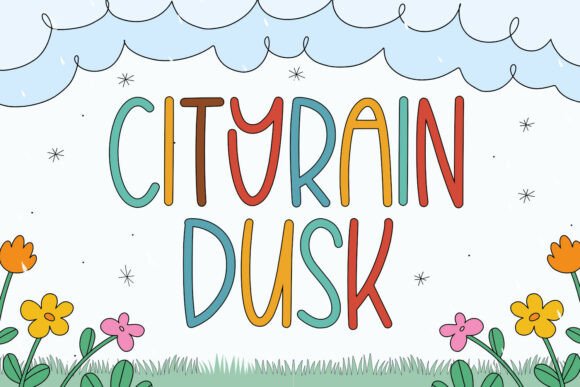
Cityrain Dusk Font: Adding a Touch of Whimsy to Your Designs
When it comes to creating visually appealing designs, the right font can make all the difference. If you’re looking for a font that exudes playfulness and charm, look no further than Cityrain Dusk Font. This delightful font is perfect for adding a touch of sweetness to your designs, whether you’re working on a children’s book, a cute logo, or social media graphics.
What Makes Cityrain Dusk Font So Special?
Cityrain Dusk Font is a charming and playful font that brings a smile to your designs. Its rounded edges, bouncy baseline, and whimsical strokes give it a unique and endearing quality that feels like a handwritten note from a friend. The font’s distinctive features include:
- Rounded Edges: The font’s rounded edges give it a soft and gentle appearance, making it perfect for designs that require a touch of warmth and friendliness.
- Bouncy Baseline: The bouncy baseline adds a playful and dynamic feel to the font, making it ideal for designs that need to convey energy and movement.
- Whimsical Strokes: The font’s whimsical strokes add a touch of personality and character to the font, making it perfect for designs that require a dash of creativity and imagination.
Perfect for a Variety of Design Projects
Cityrain Dusk Font is a versatile font that can be used for a wide range of design projects. Some of the perfect use cases for this font include:
- Children’s Books: The font’s playful and whimsical nature makes it perfect for children’s books, adding a touch of magic and wonder to your story.
- Cute Logos: The font’s charming and endearing quality makes it ideal for creating cute and memorable logos that will leave a lasting impression on your audience.
- Social Media Graphics: The font’s playful and dynamic feel makes it perfect for social media graphics, adding a touch of personality and character to your posts and updates.
- Invitations and Party Decor: The font’s whimsical and festive nature makes it perfect for invitations and party decor, adding a touch of excitement and joy to your celebrations.
Tips for Using Cityrain Dusk Font
To get the most out of Cityrain Dusk Font, here are some tips to keep in mind:
- Pair with Other Fonts: Cityrain Dusk Font pairs perfectly with other fonts, especially those with a more serious or bold tone. This contrast will add visual interest and make your design stand out.
- Use in Headings and Titles: The font’s playful and whimsical nature makes it perfect for headings and titles, adding a touch of personality and character to your design.
- Experiment with Colors: Cityrain Dusk Font looks great in a variety of colors, so don’t be afraid to experiment and find the perfect hue for your design.
The Benefits of Using Cityrain Dusk Font
Using Cityrain Dusk Font in your designs comes with a range of benefits, including:
- Unique and Memorable: The font’s distinctive features make it unique and memorable, ensuring that your design stands out from the crowd.
- Emotional Connection: The font’s playful and whimsical nature helps to create an emotional connection with your audience, making your design more relatable and engaging.
- Versatile: Cityrain Dusk Font is a versatile font that can be used for a wide range of design projects, making it a great addition to your font library.
In conclusion, Cityrain Dusk Font is a charming and playful font that brings a smile to your designs. With its rounded edges, bouncy baseline, and whimsical strokes, this font feels like a handwritten note from a friend. Perfect for children’s books, cute logos, social media graphics, and anything that needs a touch of sweetness, Cityrain Dusk Font is a great addition to any design project.